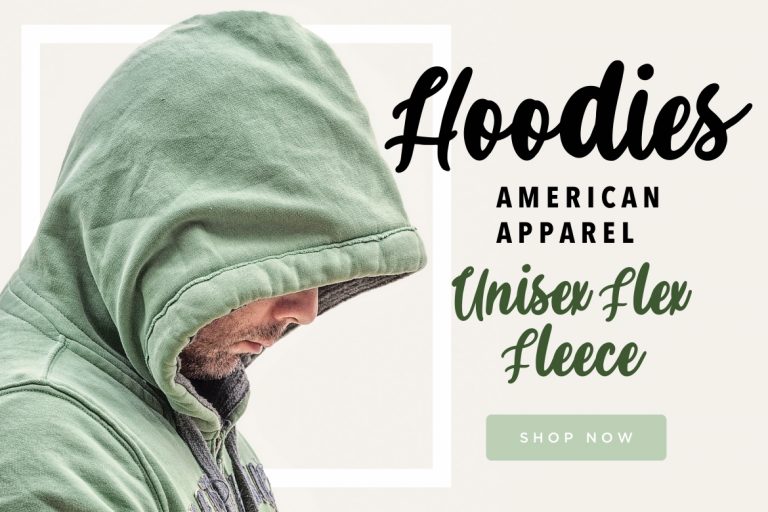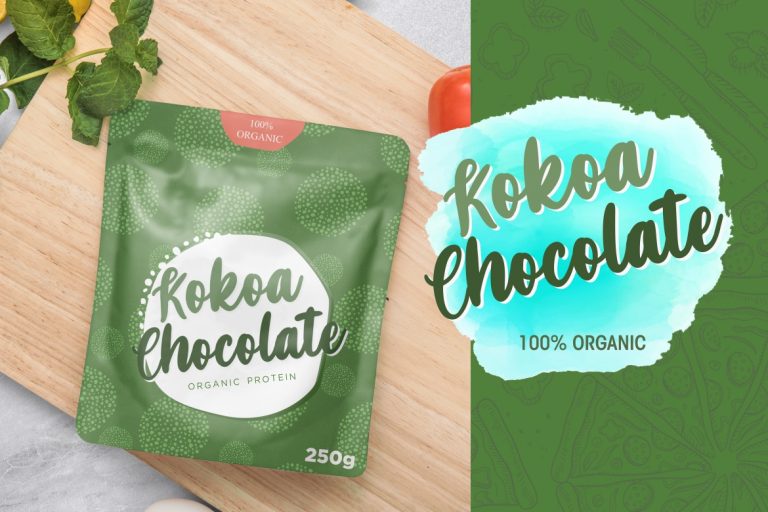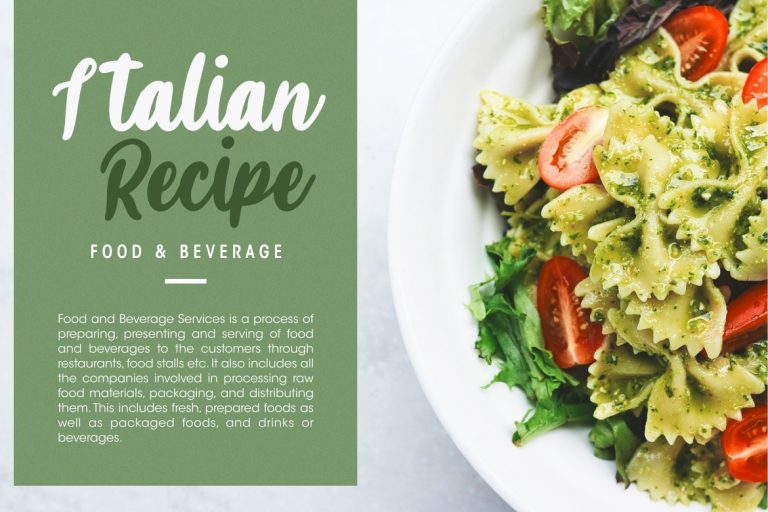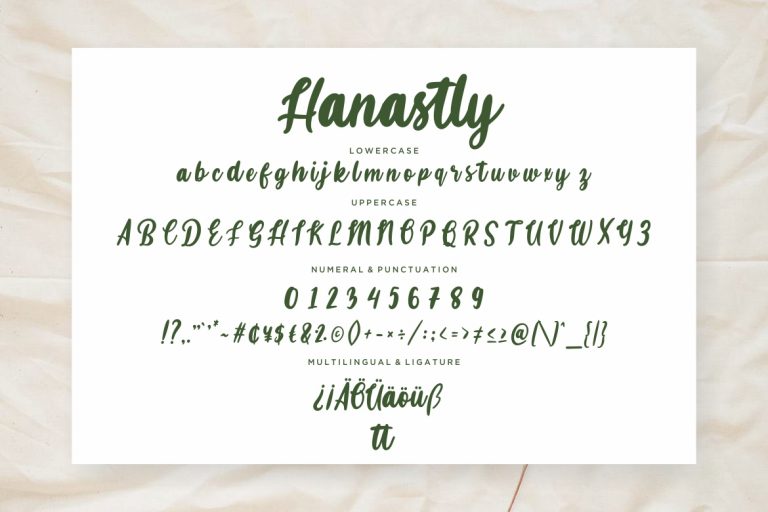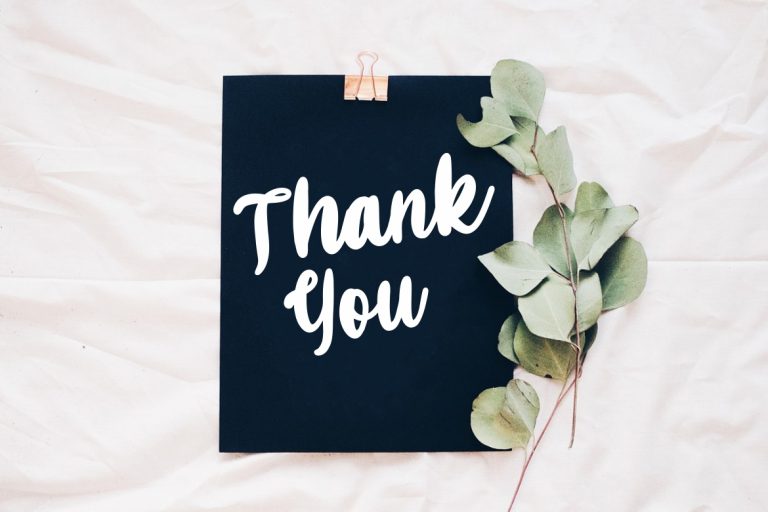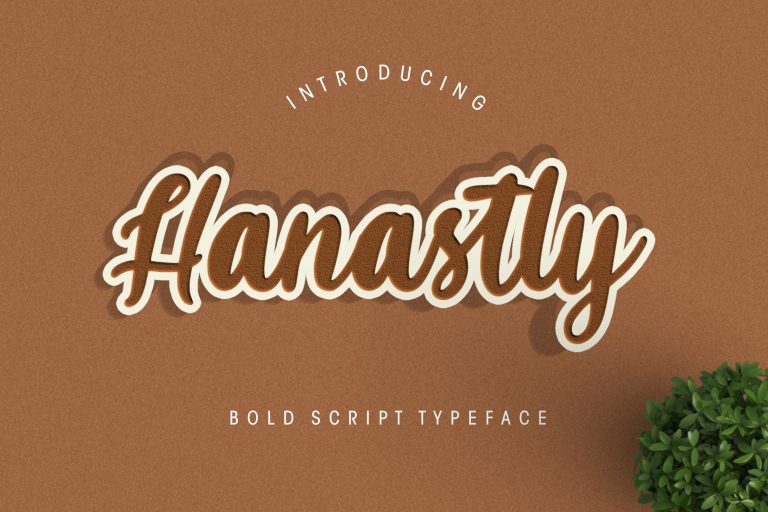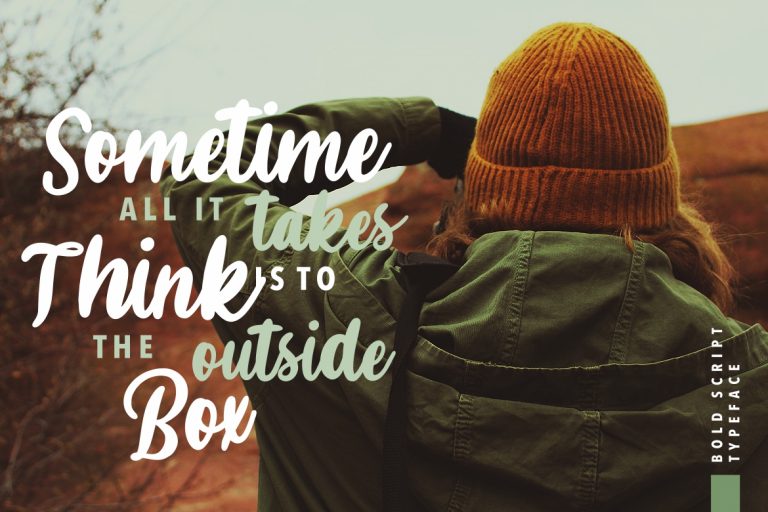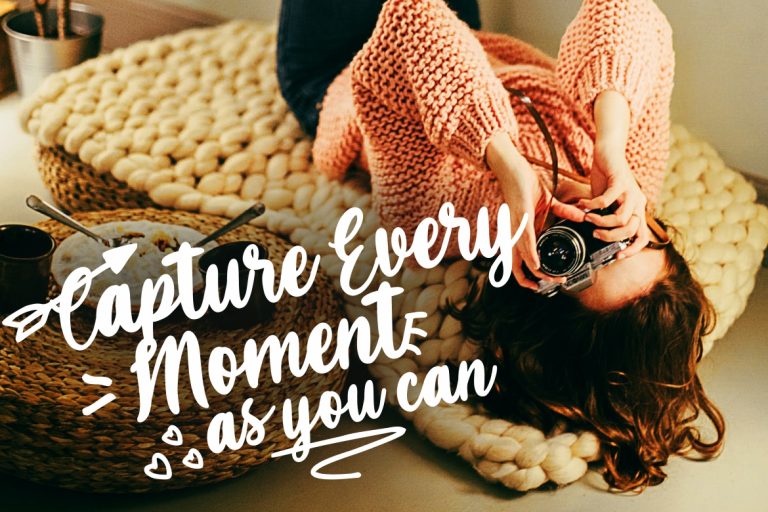
Hanastly Bold Script is a handwritten bold script with personal touch make looks elegant, classy and modern.
Hanastly Bold Script is perfect for branding projects, logo, wedding designs, social media posts, advertisements, product packaging, product designs, label, photography, watermark, invitation, stationery and any projects that need handwriting taste.
• Fonts include multilingual support for; ä ö ü Ä Ö Ü ß ¿ ¡
Hanastly Bold Script